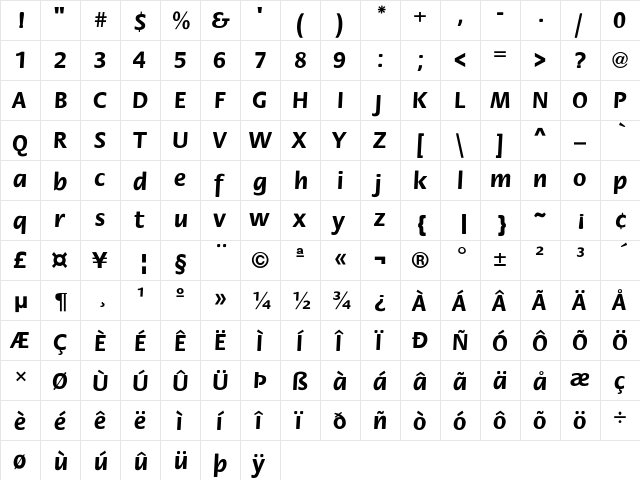
Flora-Bold Regular
Design Context for Flora-Bold Typeface
Flora-Bold takes a measured approach to typography — its balanced proportions and neutral character make it a reliable workhorse for both digital and print work. Its bold stroke weight gives it real presence on the page.